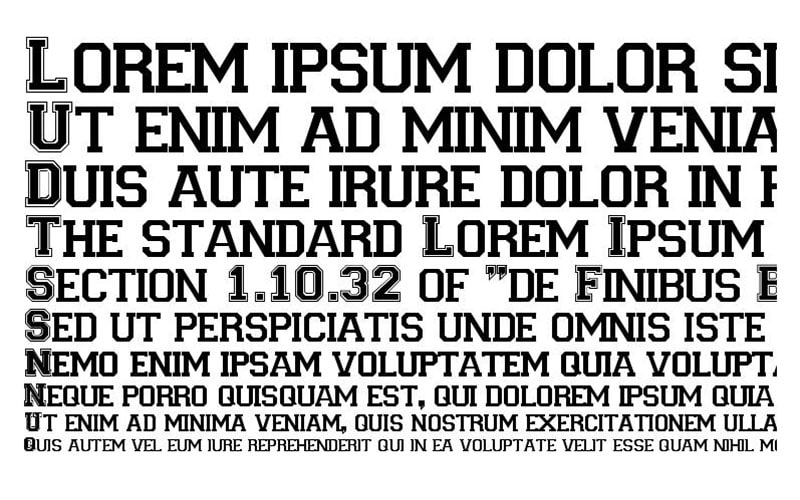
Varsity Font is an iconic typeface that brings the spirit of athleticism and academic prestige to any design project, designed by Brøderbund Software.
A company known for its innovative approach to software and digital fonts. The design team aimed to capture the essence of traditional collegiate and sports lettering.
Creating a typeface that evokes a sense of competition, team spirit, and school pride. Ideal for school banners, flyers, and yearbooks, giving a classic academic feel.
It is primarily available in a bold style, enhancing its visual impact. The standard bold style with clean, blocky letterforms is perfect for creating a strong visual presence.
Great for designing apparel and accessories that embody school spirit and athleticism. Enhances web and social media content with a dynamic and engaging font style.